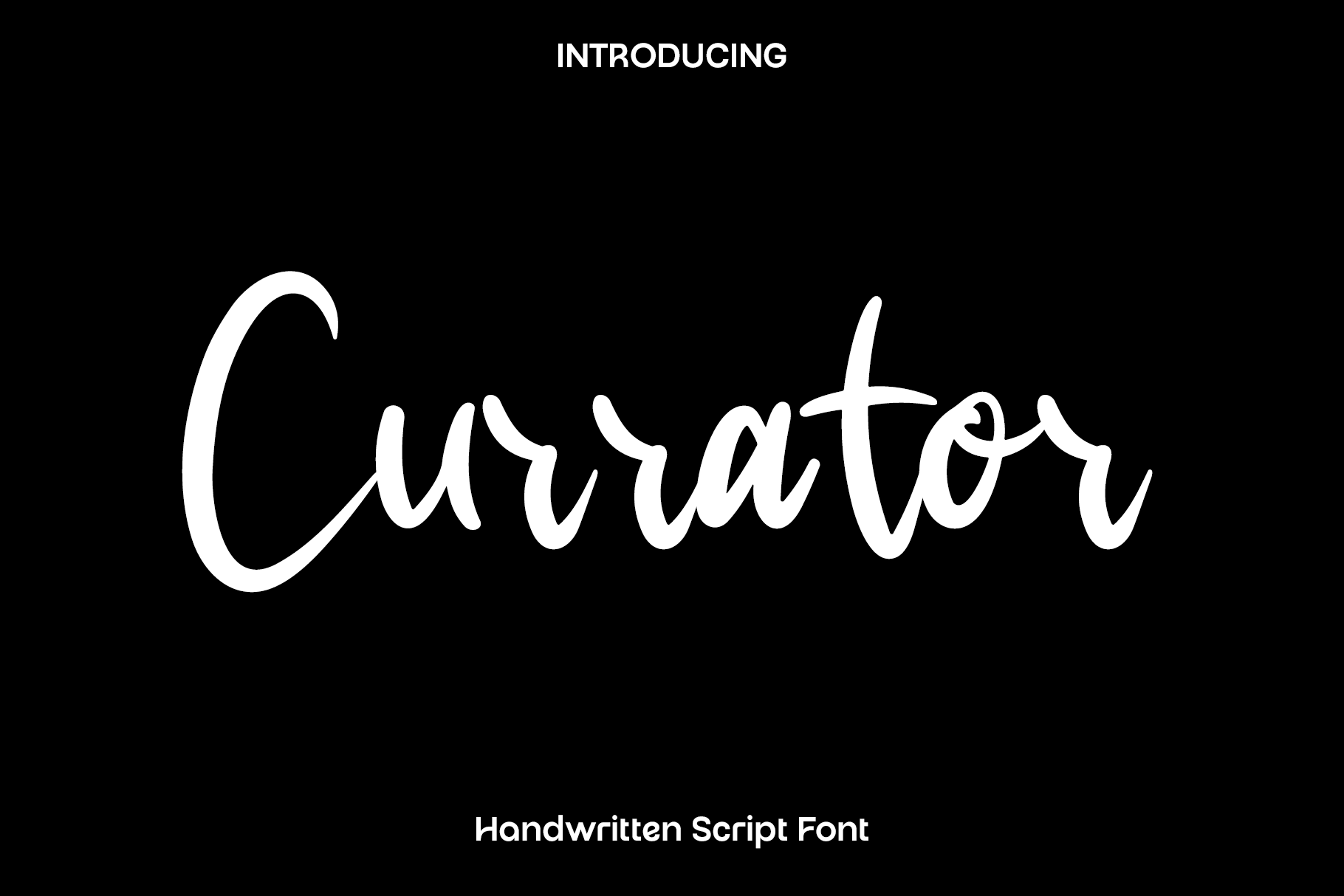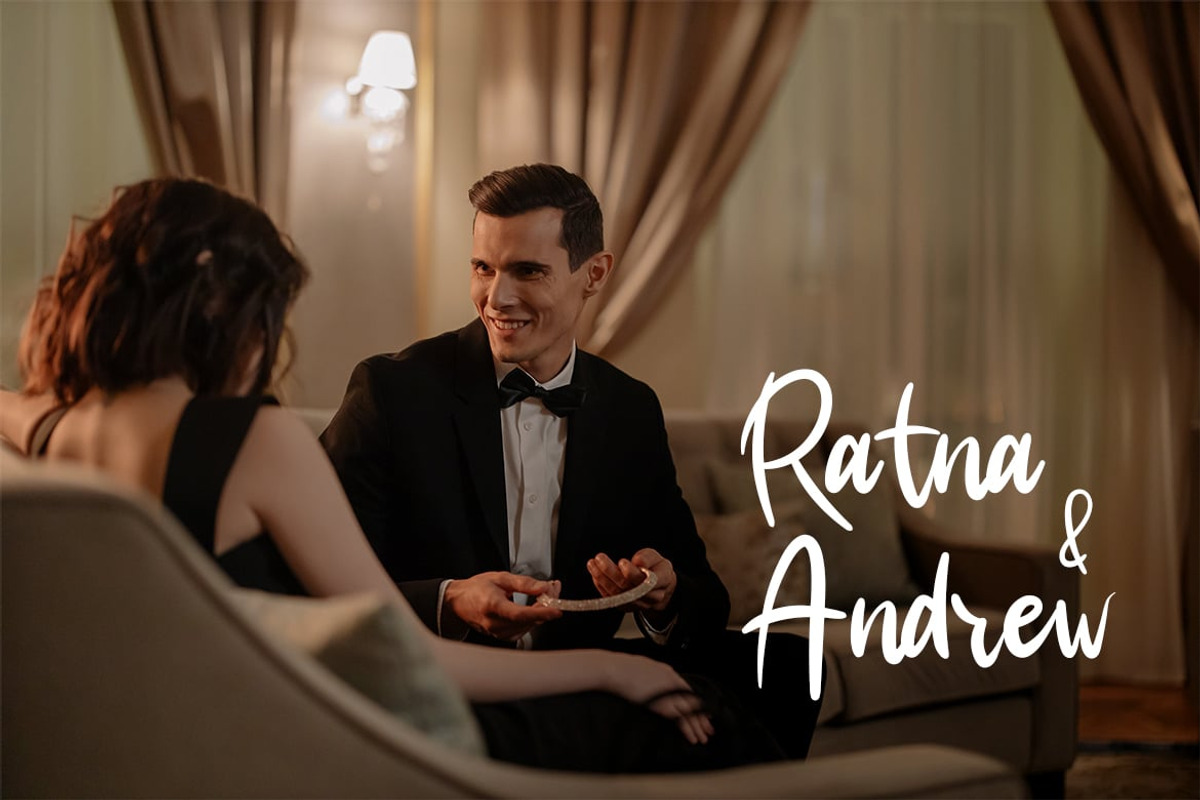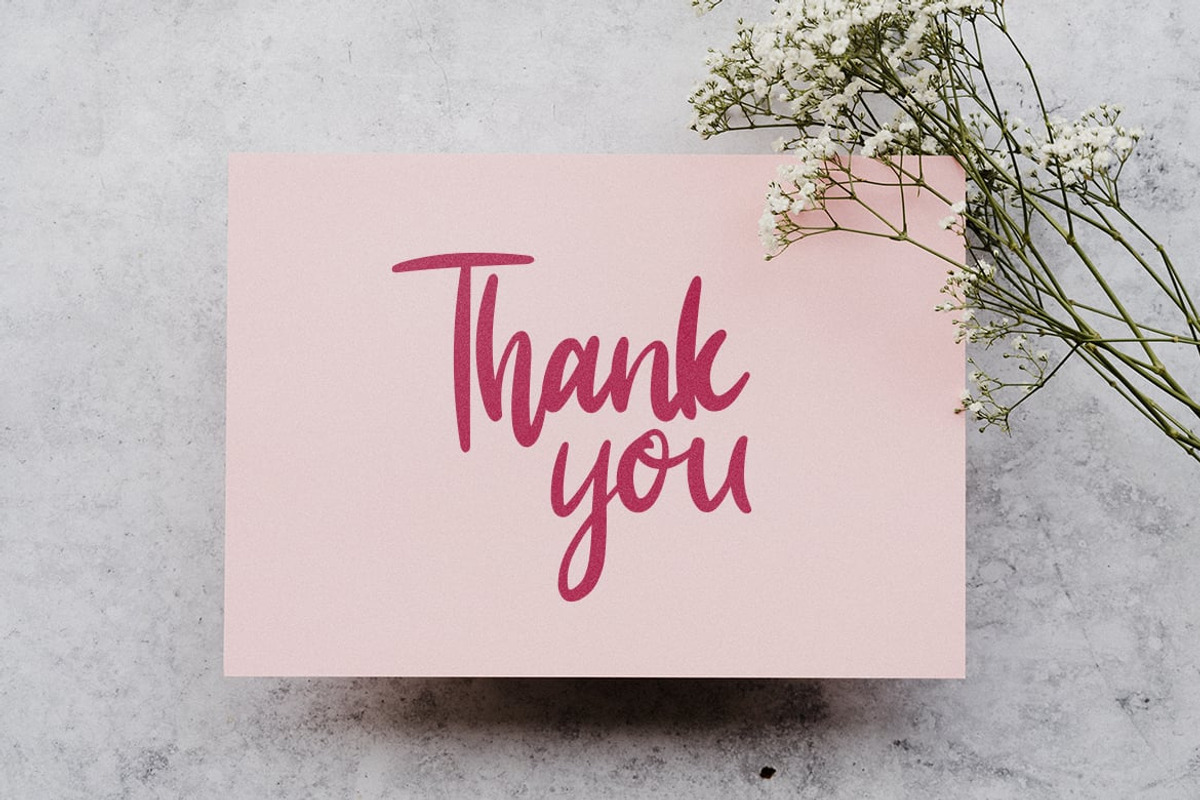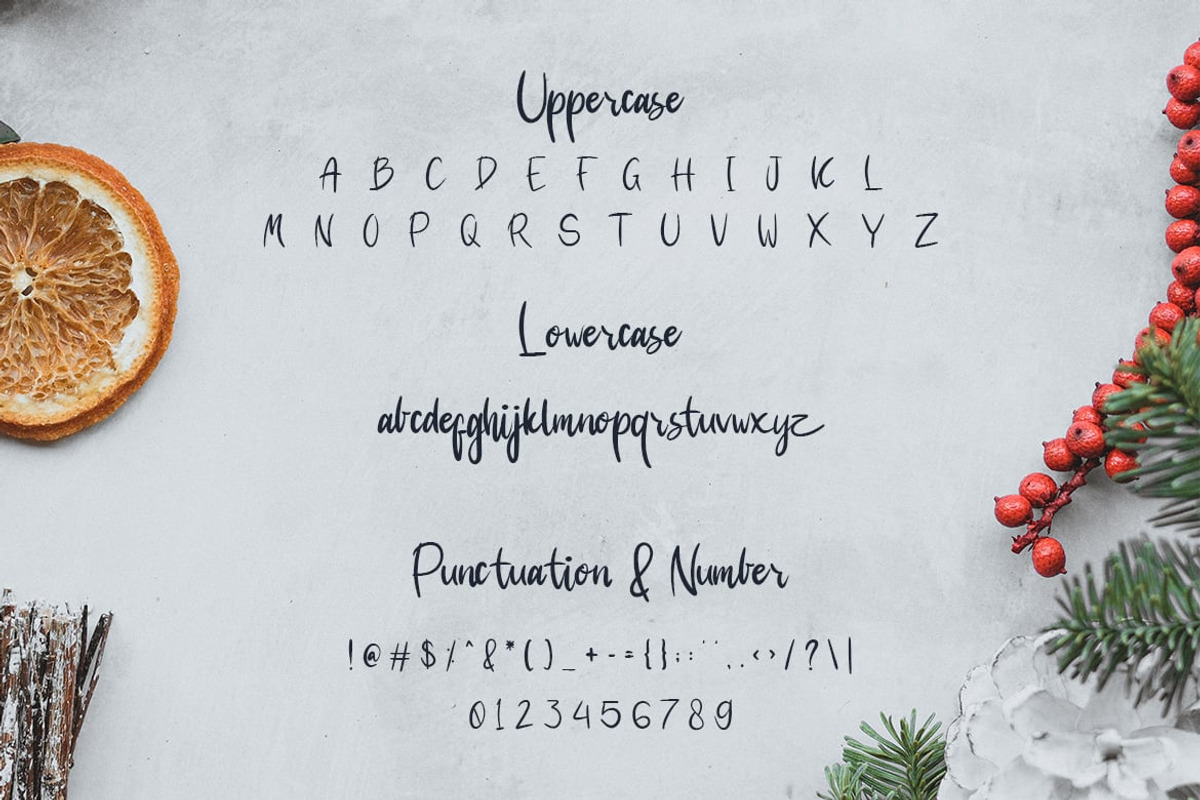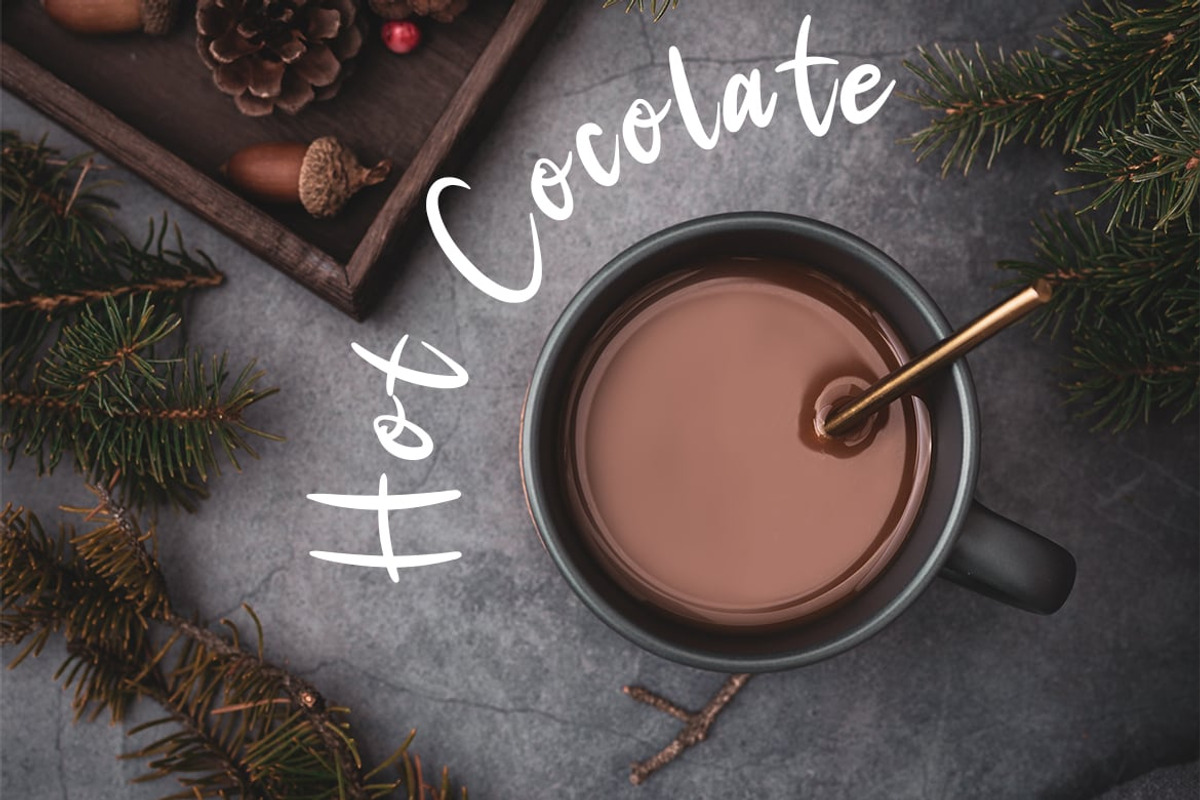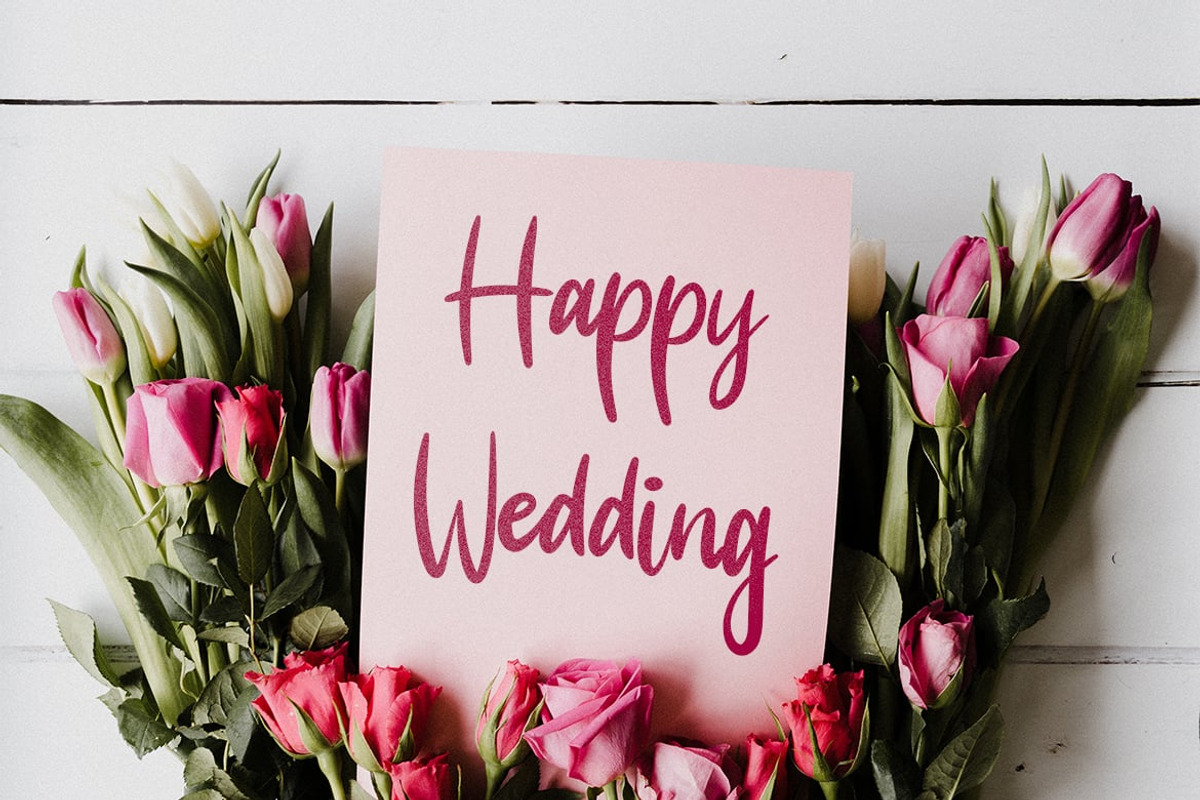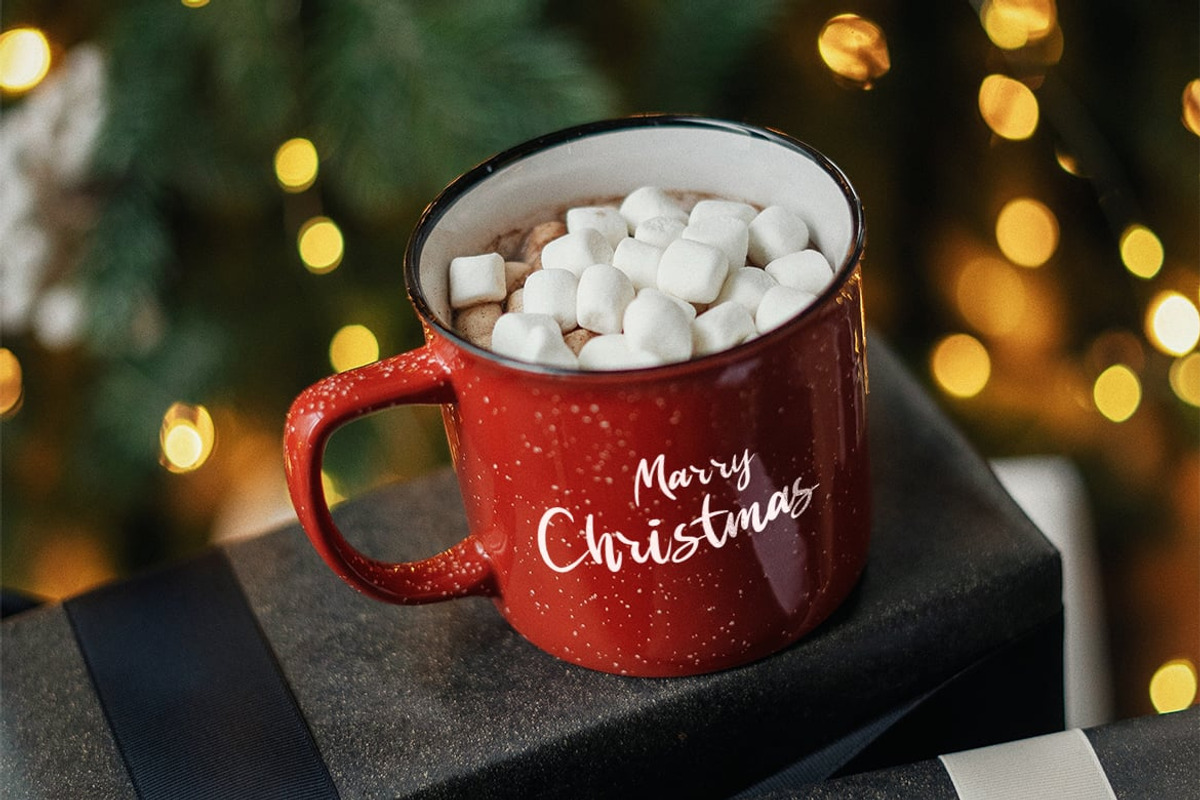
Currator - Handwritten Script Font
Currator is a beautifully crafted handwritten script font designed to bring warmth, personality, and authentic charm to every creative project. Inspired by natural handwriting and elegant brush lettering, Currator features smooth flowing strokes and expressive characters that create a genuine handcrafted appearance. Every letter has been carefully designed to deliver a perfect balance between casual elegance and professional quality, making your typography feel personal, stylish, and memorable.
Perfect for branding, logos, wedding invitations, greeting cards, product packaging, labels, social media graphics, photography watermarks, advertisements, stationery, business cards, lifestyle branding, quotes, and creative editorial designs, Currator adapts effortlessly to both print and digital media. Its graceful handwritten style adds a welcoming and sophisticated touch that enhances any visual identity.
Designed for creators who appreciate authentic typography, Currator offers excellent readability while preserving the natural flow and character of handwritten lettering. Whether you are designing for boutique brands, fashion businesses, handmade products, or special occasions, Currator helps create meaningful and elegant designs that leave a lasting impression.
With its timeless handwritten style and premium craftsmanship, Currator transforms ordinary text into expressive typography filled with creativity, warmth, and personality. It is an essential addition to every designer's font collection for projects that require elegance, authenticity, and modern handwritten appeal.
Currator Font Features:
• Elegant handwritten script style
• Uppercase and lowercase letters
• Numerals and punctuation
• Perfect for logos, branding, weddings, invitations, packaging, stationery, social media, photography, and creative marketing materials
• Suitable for both print and digital projects